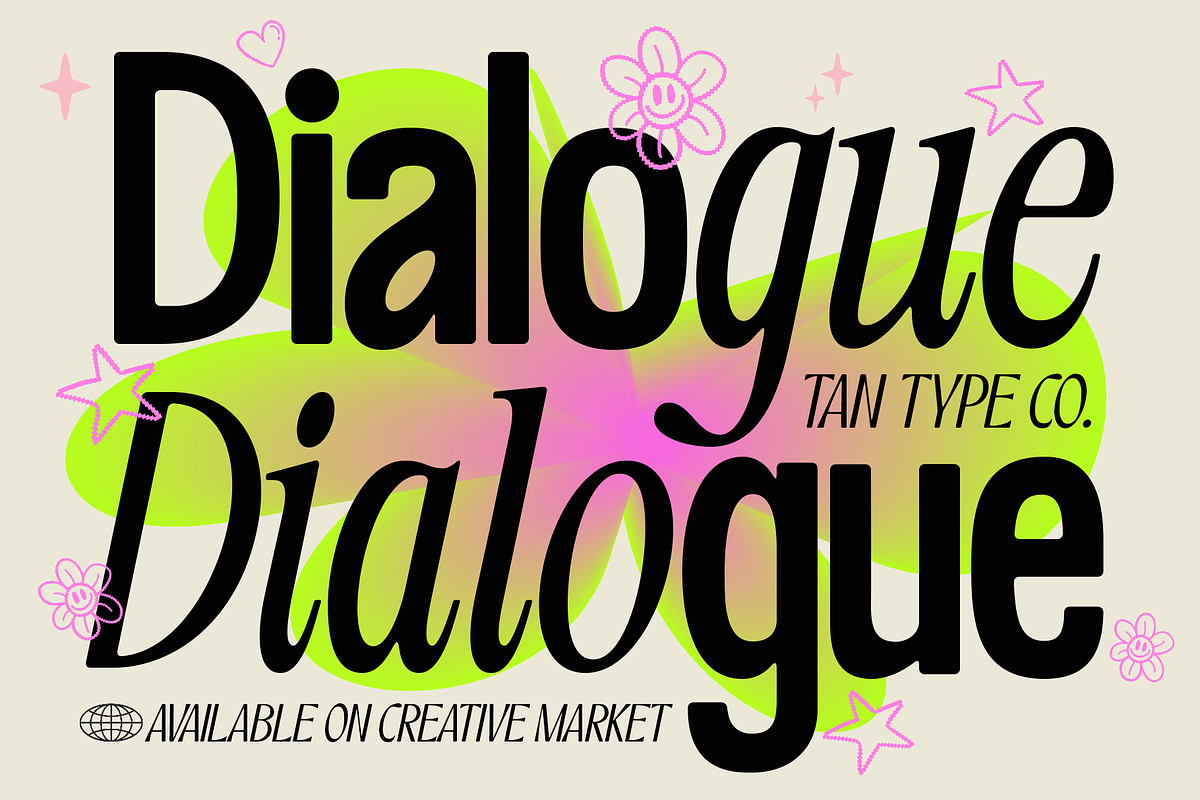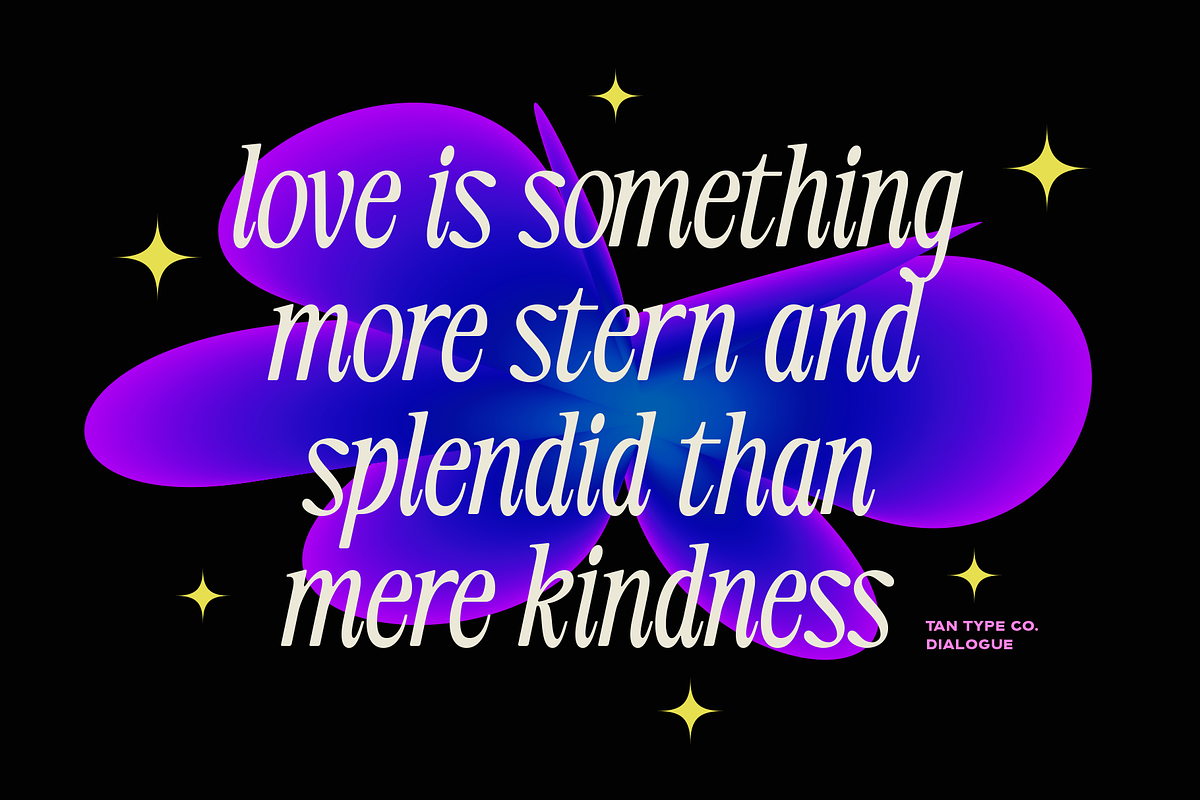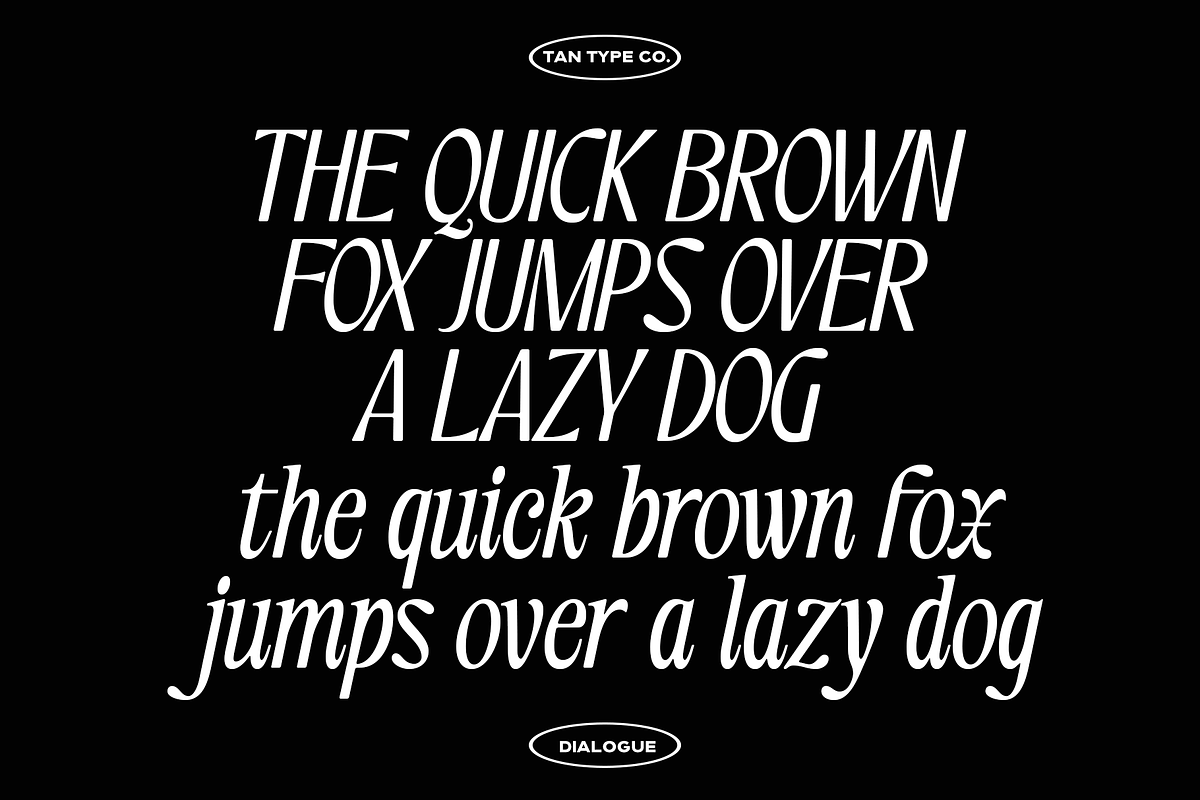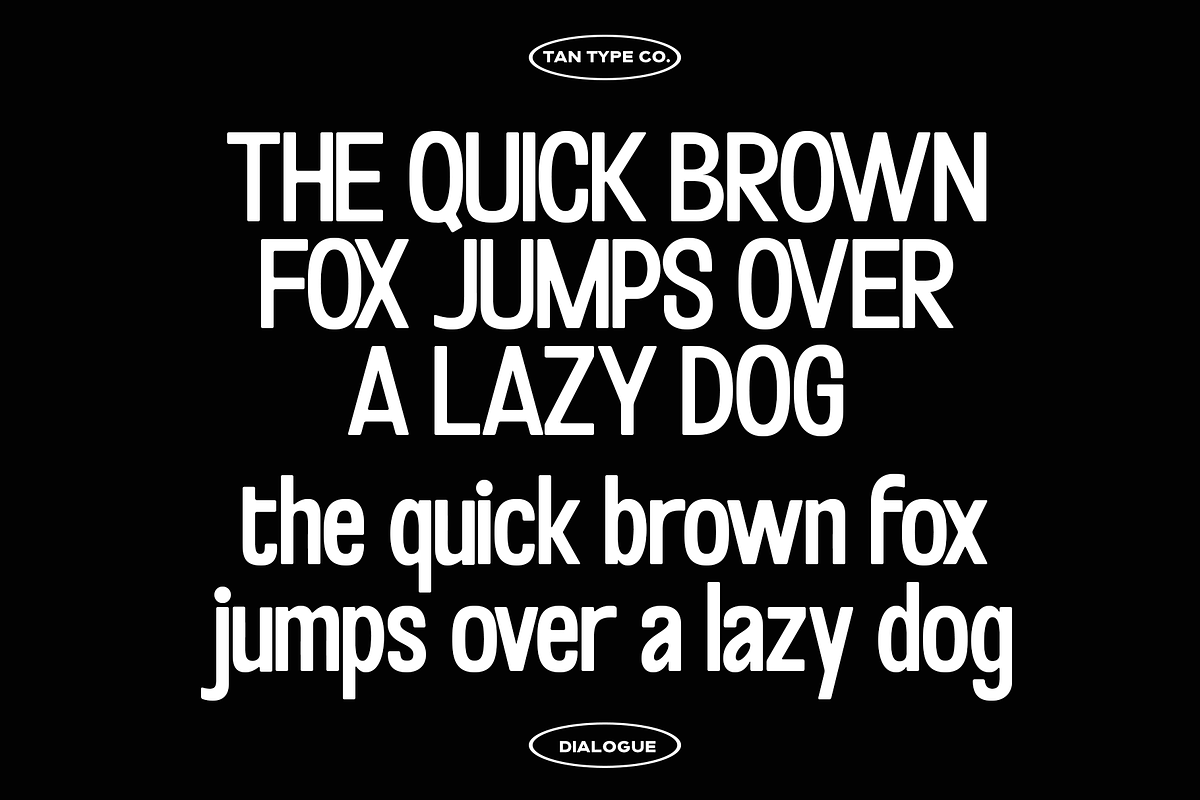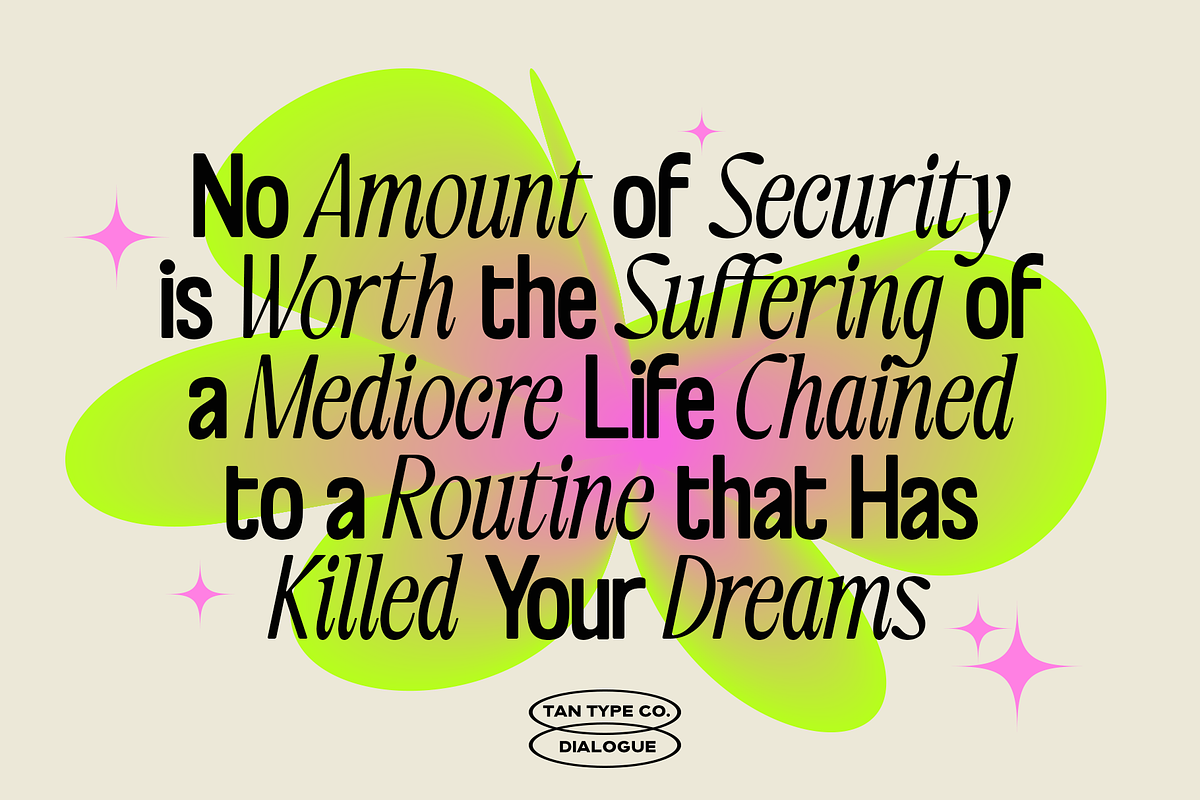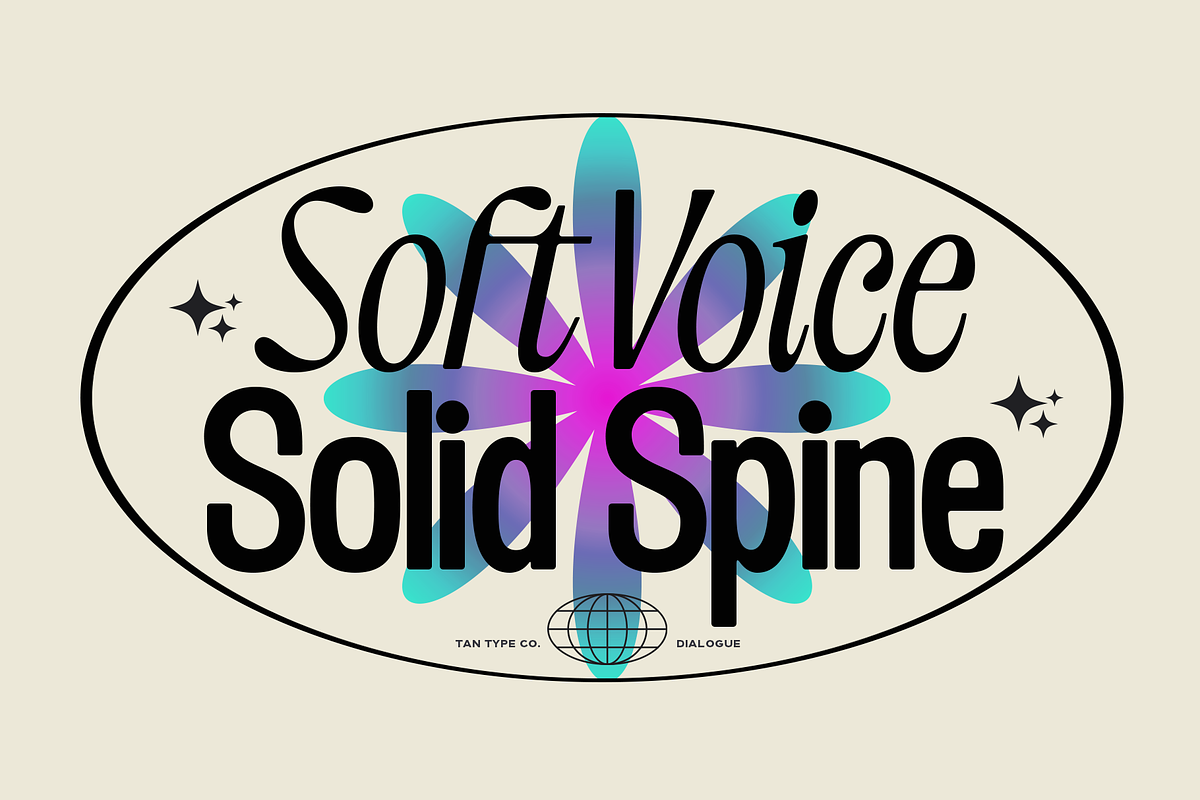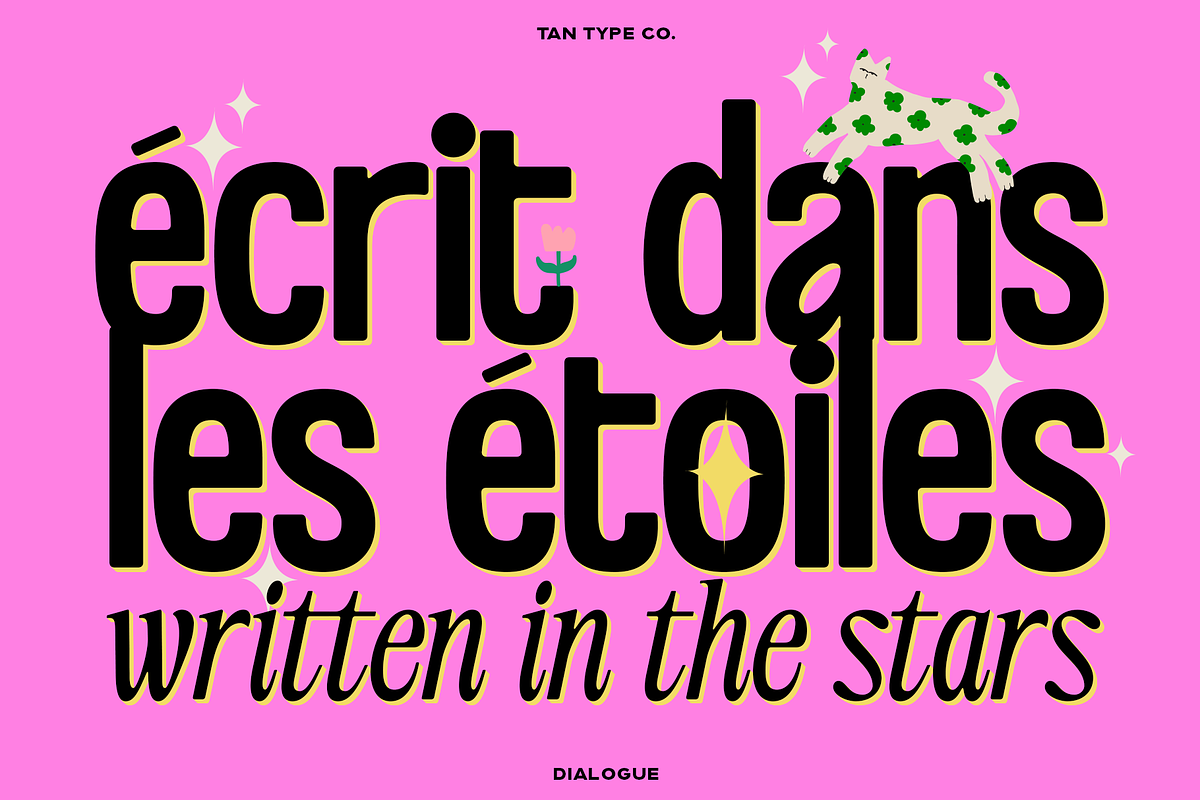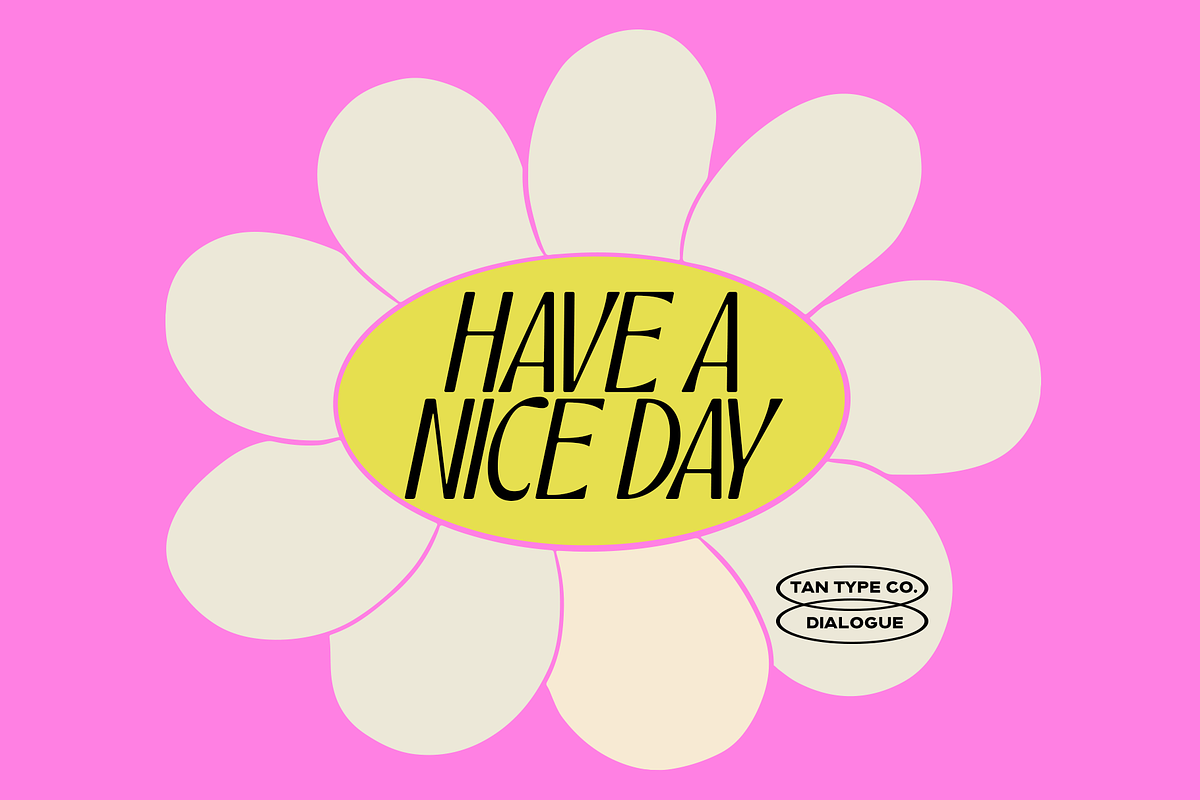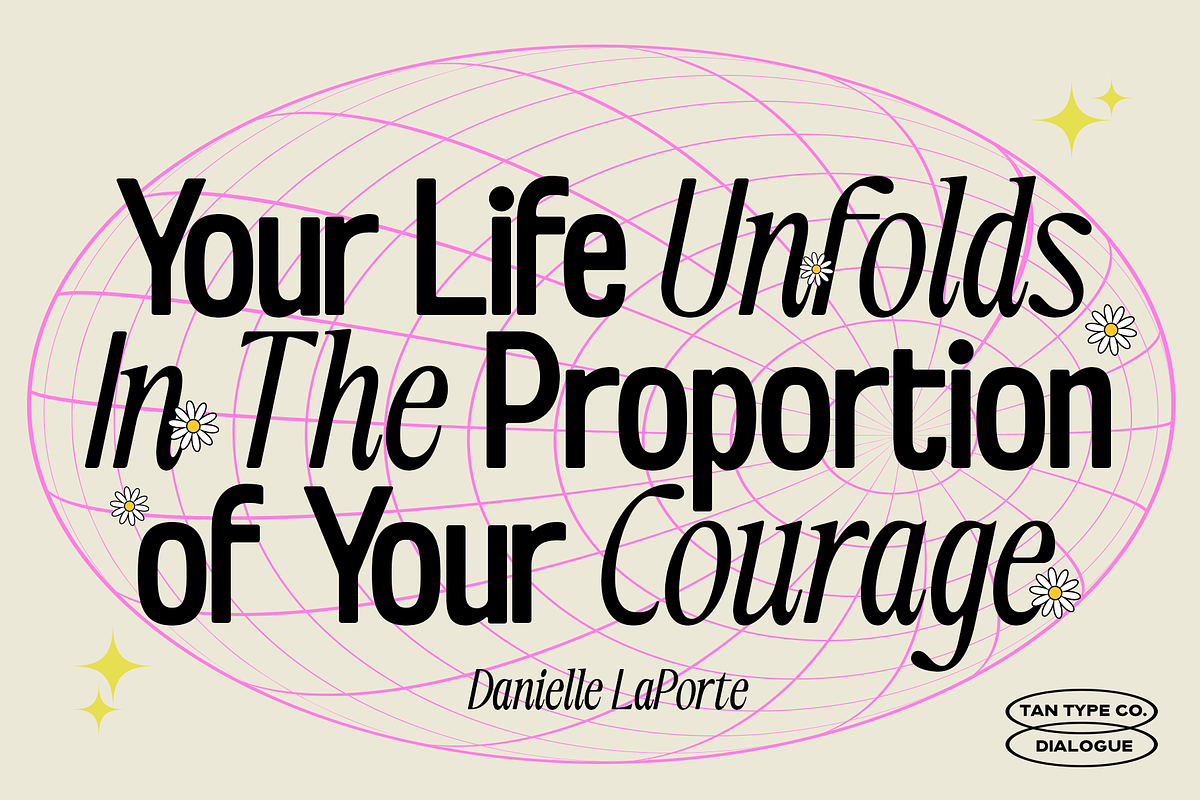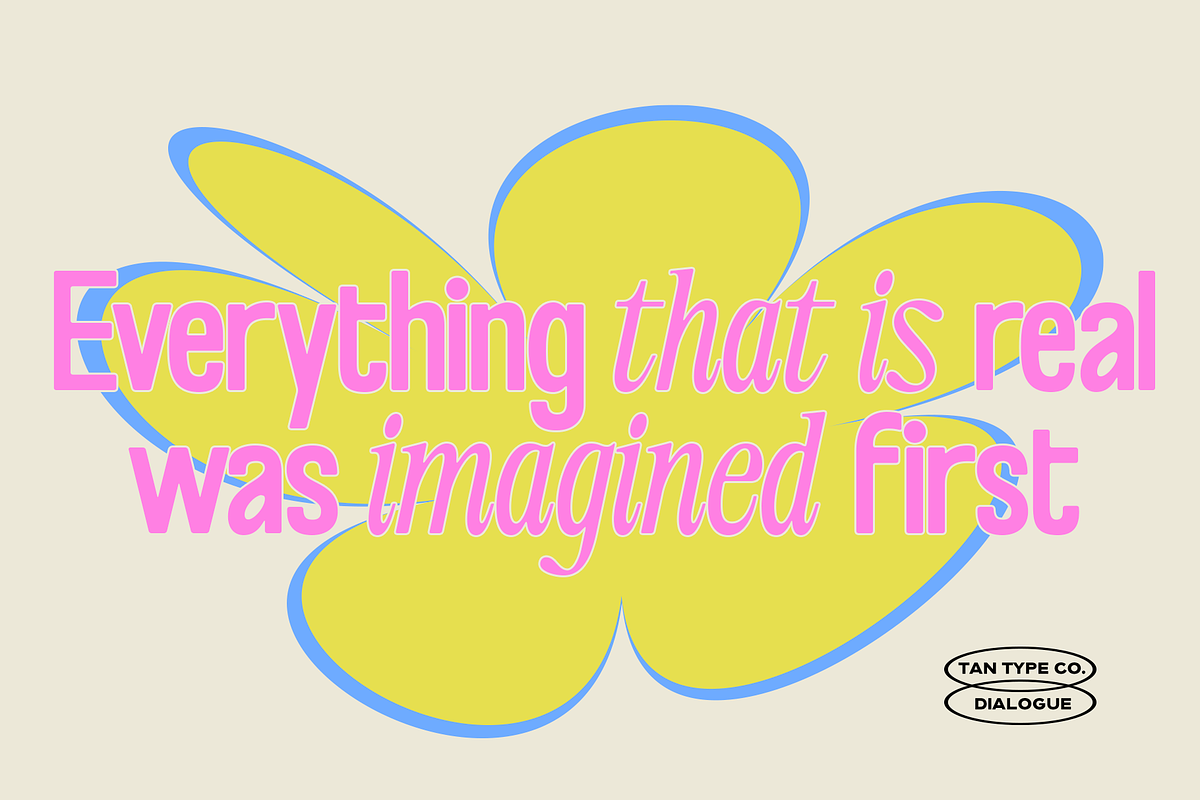
TAN - DIALOGUE
Tan-Dialogue is a contemporary duo font that celebrates contrast and balance. One voice is bold, structured, and modern—a clean sans serif with soft edges that adds warmth to its strength. The other speaks in elegant italics—thin, classic, and subtly teasing, bringing a refined charm to any design.
Together, they create a conversation between power and grace, making Dialogue perfect for branding, editorials, packaging, and sophisticated headlines. Use them side by side for harmony, or let each one stand confidently on its own—either way, the Dialogue speaks beautifully.